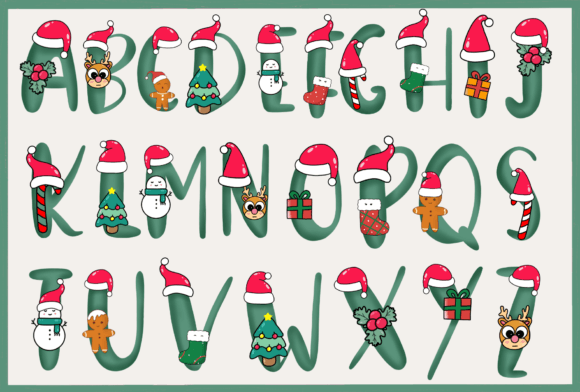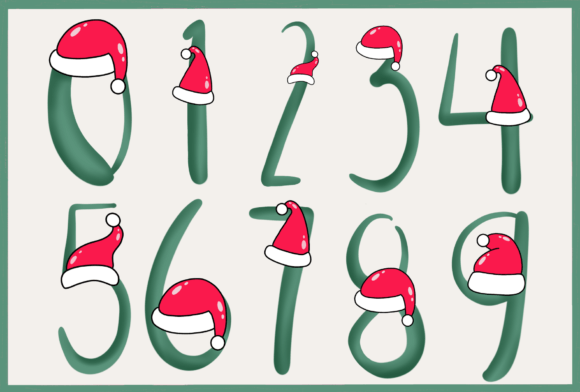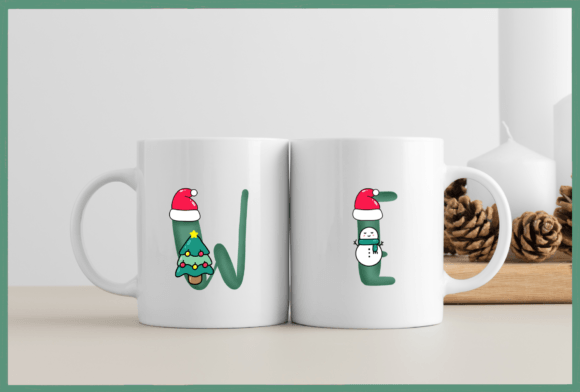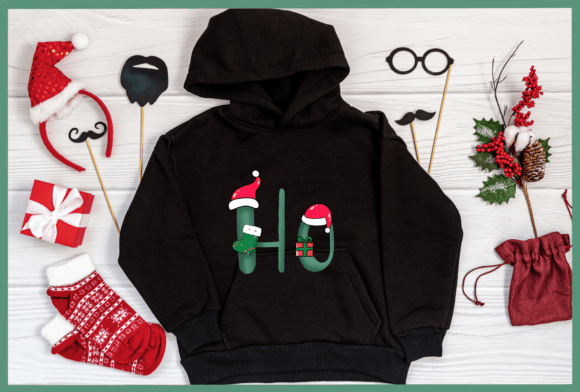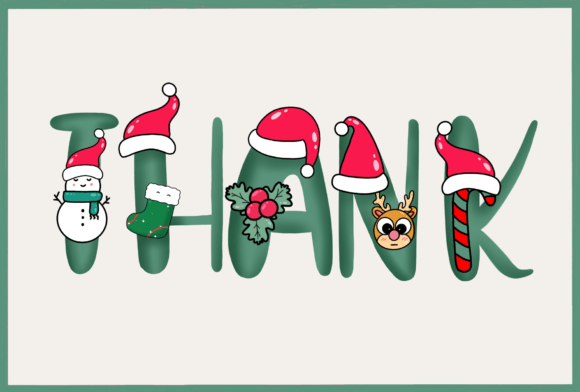
Christmas Cute Font: A Festive and Versatile Decorative Font for Your Designs
Are you looking for a font that can add a touch of magic to your designs this holiday season? Look no further than Christmas Cute Font, an organic and beautiful decorative font that features lovely ornaments. With its unique and playful style, Christmas Cute Font is perfect for designers and crafters who want to create festive and eye-catching designs that stand out from the crowd.
What Makes Christmas Cute Font So Special?
Christmas Cute Font is an incredibly versatile font that can be used for a wide range of design projects, from holiday cards and invitations to festive packaging and branding. Its organic and decorative style makes it perfect for creating designs that are both fun and sophisticated. The font features lovely ornaments that add a touch of whimsy and playfulness to any design, making it perfect for designers and crafters who want to create unique and eye-catching projects.
Key Features of Christmas Cute Font
- Organic and decorative style: Christmas Cute Font features a unique and playful style that is perfect for creating festive and eye-catching designs.
- Lovely ornaments: The font features lovely ornaments that add a touch of whimsy and playfulness to any design.
- Versatile: Christmas Cute Font can be used for a wide range of design projects, from holiday cards and invitations to festive packaging and branding.
How to Use Christmas Cute Font in Your Designs
- Holiday cards and invitations: Use Christmas Cute Font to create festive and eye-catching holiday cards and invitations that will impress your friends and family.
- Festive packaging: Add a touch of magic to your product packaging with Christmas Cute Font, perfect for holiday gifts and promotions.
- Branding and marketing materials: Use Christmas Cute Font to create festive and eye-catching branding and marketing materials, such as social media graphics and flyers.
- Increased creativity: The font’s playful and decorative style can help inspire your creativity and take your designs to the next level.
Tips and Tricks for Getting the Most Out of Christmas Cute Font
- Use the font in combination with other design elements: Christmas Cute Font can be used in combination with other design elements, such as images and graphics, to create unique and eye-catching designs.
- Don’t be afraid to get creative: The playful and decorative style of Christmas Cute Font makes it perfect for creative and experimental design projects.
In conclusion, Christmas Cute Font is a versatile and beautiful decorative font that is perfect for designers and crafters who want to add a touch of magic to their designs this holiday season. With its unique and playful style, lovely ornaments, and ease of use, Christmas Cute Font is an incredible asset to any font library.